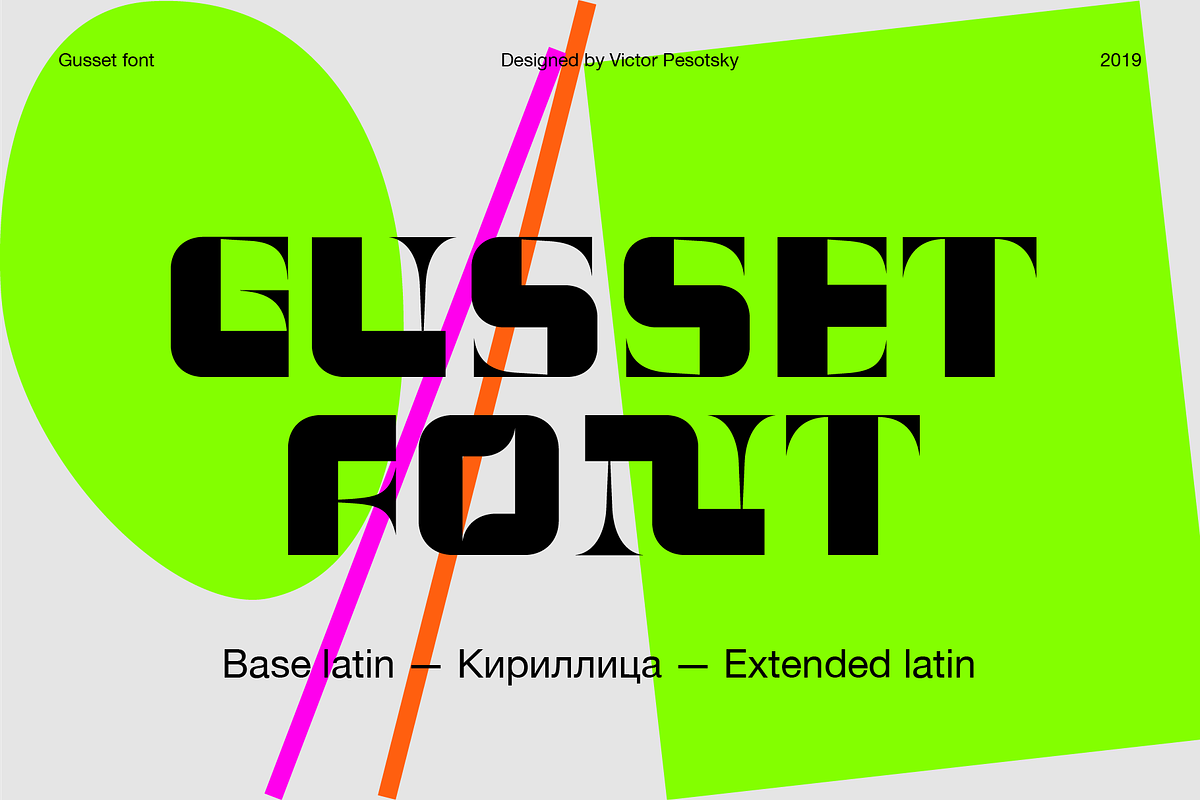
GUSSET Display Modular Font Free Download is a bold, geometric typeface built with modular precision and futuristic flair. Featuring clean lines, blocky forms, and a highly stylized structure, this font is ideal for tech branding, experimental posters, album art, digital interfaces, and modern editorial layouts.
Designed for maximum impact, GUSSET delivers a unique, architectural feel that’s perfect for cutting-edge design projects. Its modular nature gives it a strong, almost mechanical rhythm—making it a standout choice for titles, logos, and creative display use.
Whether you're working on a sci-fi concept or a design-forward campaign, GUSSET provides a sleek, innovative edge.